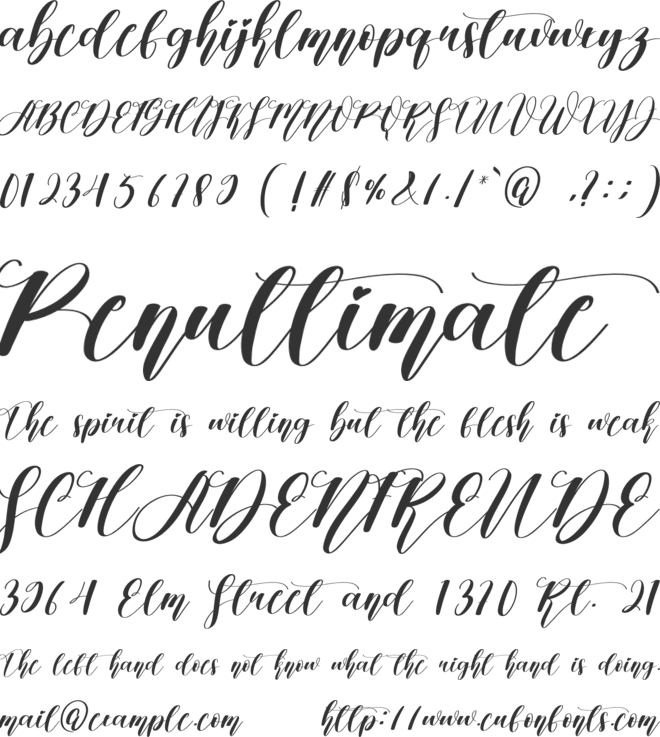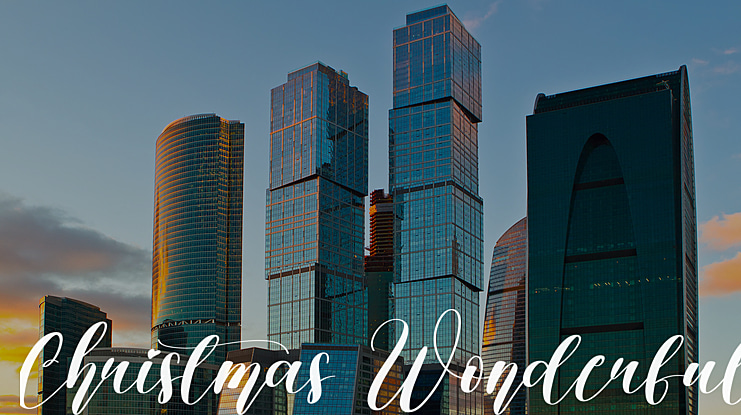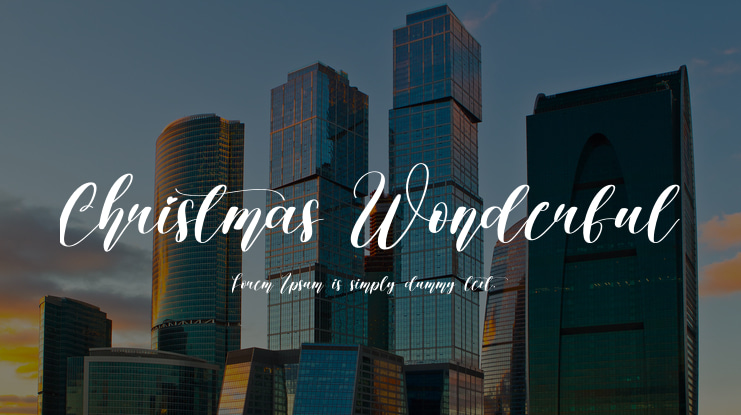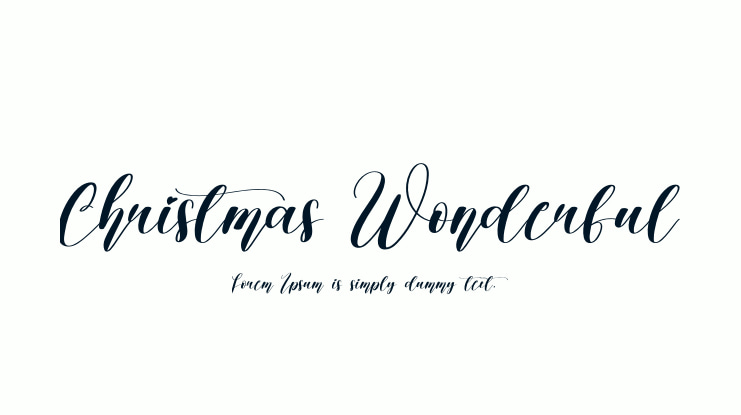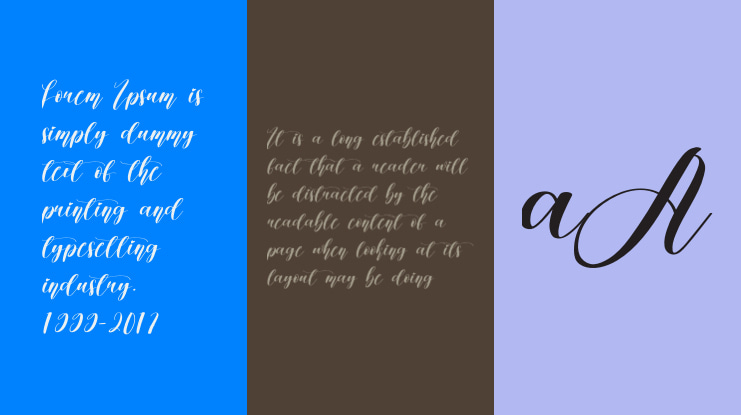
Christmas Wonderful Font
special creative products for you, our products will give you an extraordinary experience.the latest style letters are perfect for wall displays, wedding invitations, social media post logos, advertisements, product packaging, product designs, labels, photography, watermarks, invitations, stationery, and any project that requires taste handwriting.Links for license and contact:================================================== =========https://scratchones.com/product/christmas-wonderful/gmail : ================================================== =========ATTENTION:WARNING!!!By installing or using this font, you agree to the Product Use Agreement:- This font has a FULL VERSION and is ONLY for PERSONAL USE. NO COMMERCIAL USE!- If you need CUSTOM PERMIT or COMPANY PERMIT please go to : (www.scratchones.com)- Any donations are greatly appreciated. Paypal account for donations: (paypal.me/scratchones)USE OF COMMERCIAL FONT WITHOUT PURCHASE OF LICENSEOFFICIAL www.scratchones.com will be fined 8X THE MINIMUM LICENSE FEES FROM THE LICENSE PRICE !!!!thanks.